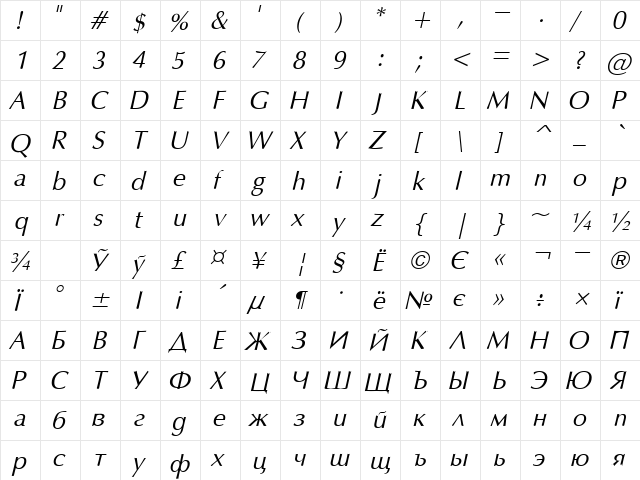
Opium Italic
Design Context for Opium Typeface
Opium offers clean, dependable letterforms without strong stylistic allegiance, making it a practical choice for designers who need flexibility. The dynamic lean of this cut emphasises speed and emphasis in any layout.
Pro Tip: Try Opium for annotation and caption copy alongside an upright companion — the contrast in angle creates a dynamic but ordered typographic system.